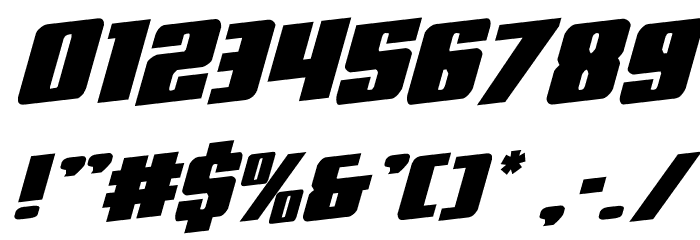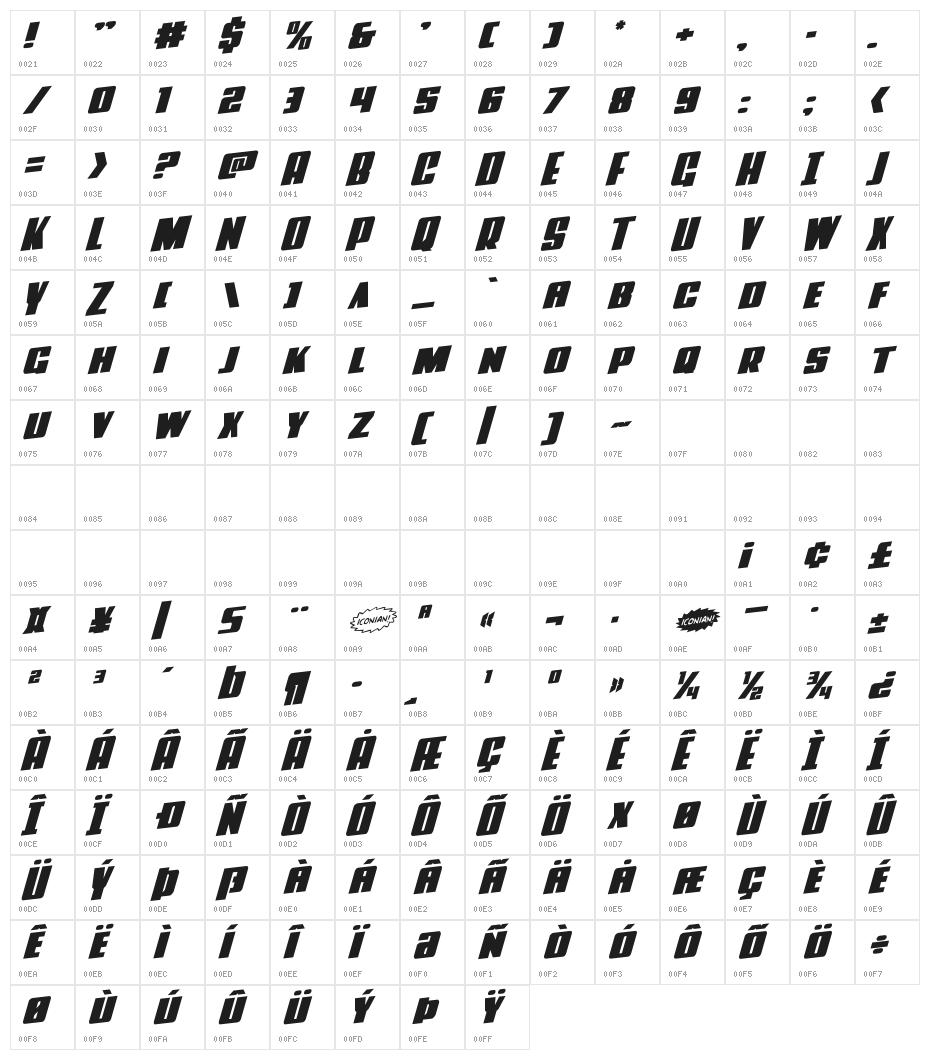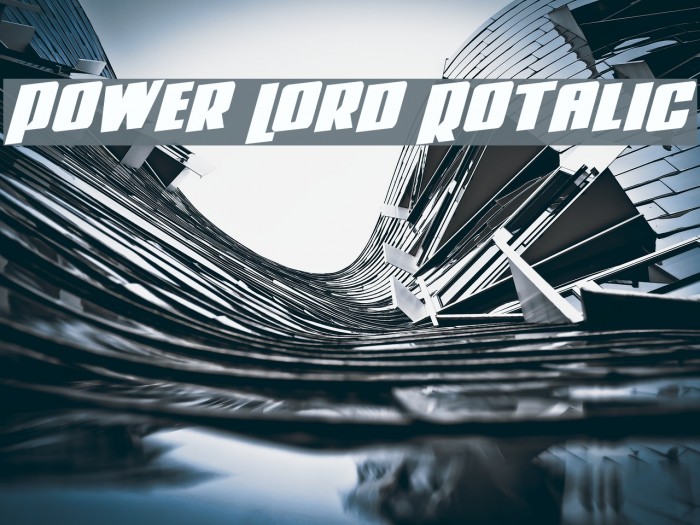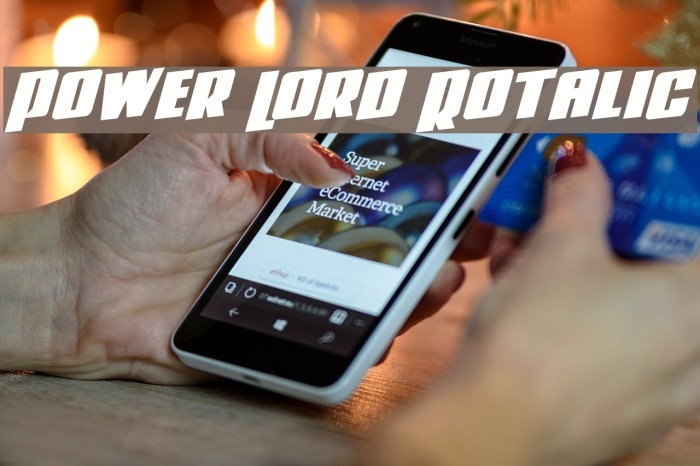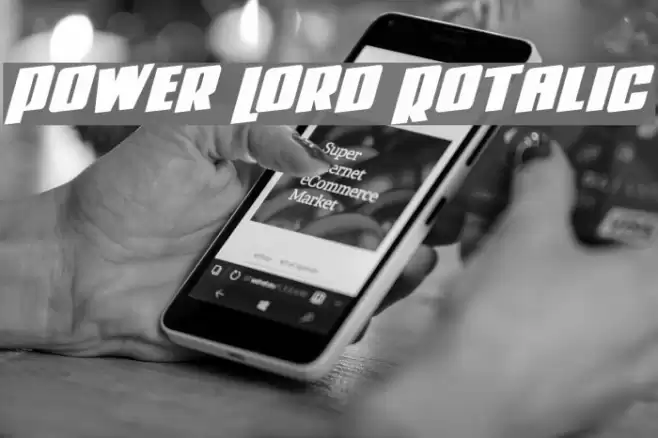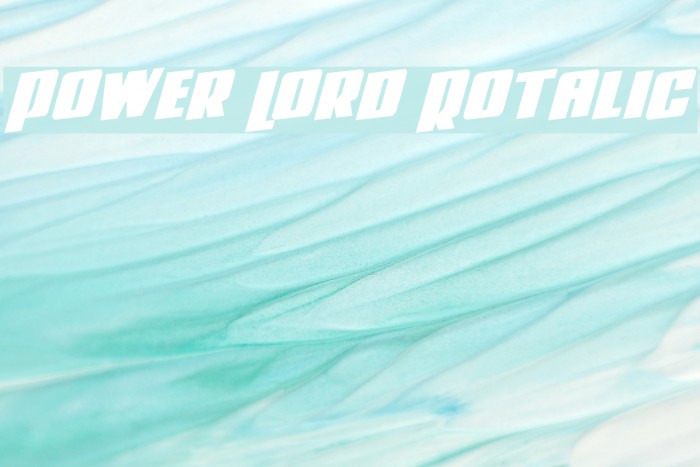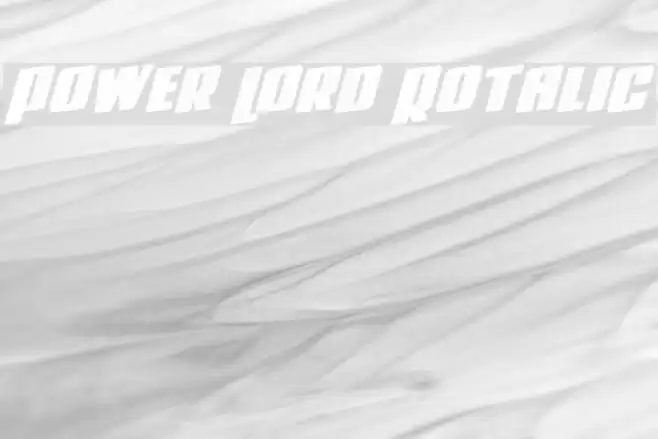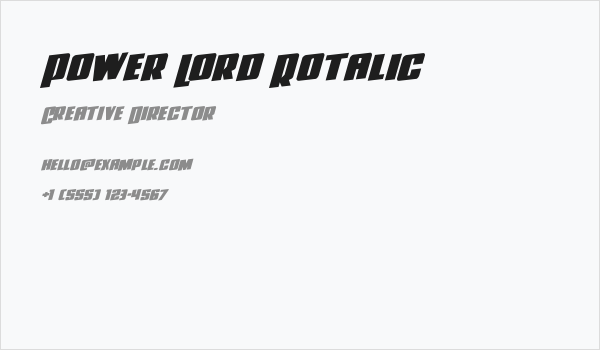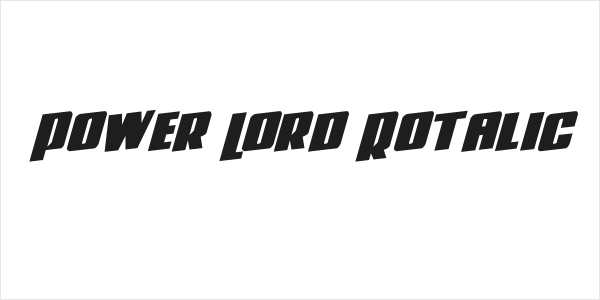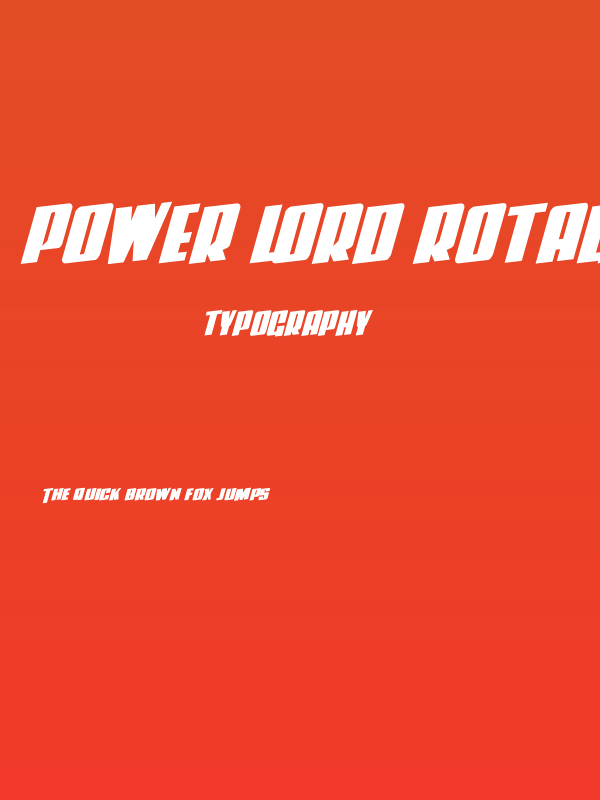
Power Lord Rotalic Font
Power Lord Rotalic Description
This font features a bold, italicized style with a strong, angular presence. The characters are sharply defined with a slanted orientation, giving a sense of motion and dynamism. The uppercase letters are particularly striking, with a wide stance and thick strokes that convey power and authority. The lowercase letters maintain the same boldness, ensuring consistency across the typeface. Numbers and special characters are equally robust, making them suitable for impactful designs. The overall design is modern and assertive, ideal for projects that require a commanding visual presence.
Proposed ProjectsIdeal for sports branding, action movie posters, and dynamic logo designs.